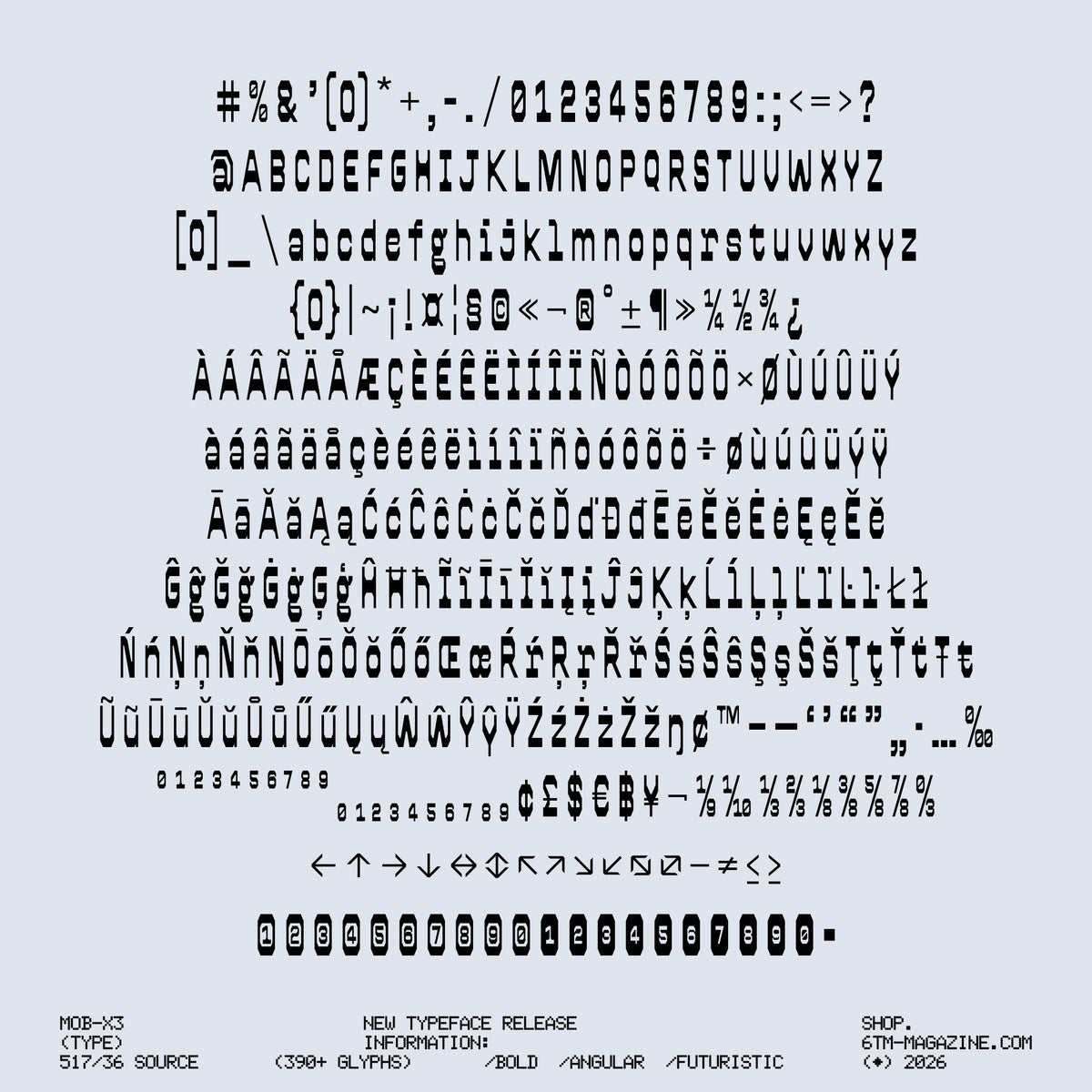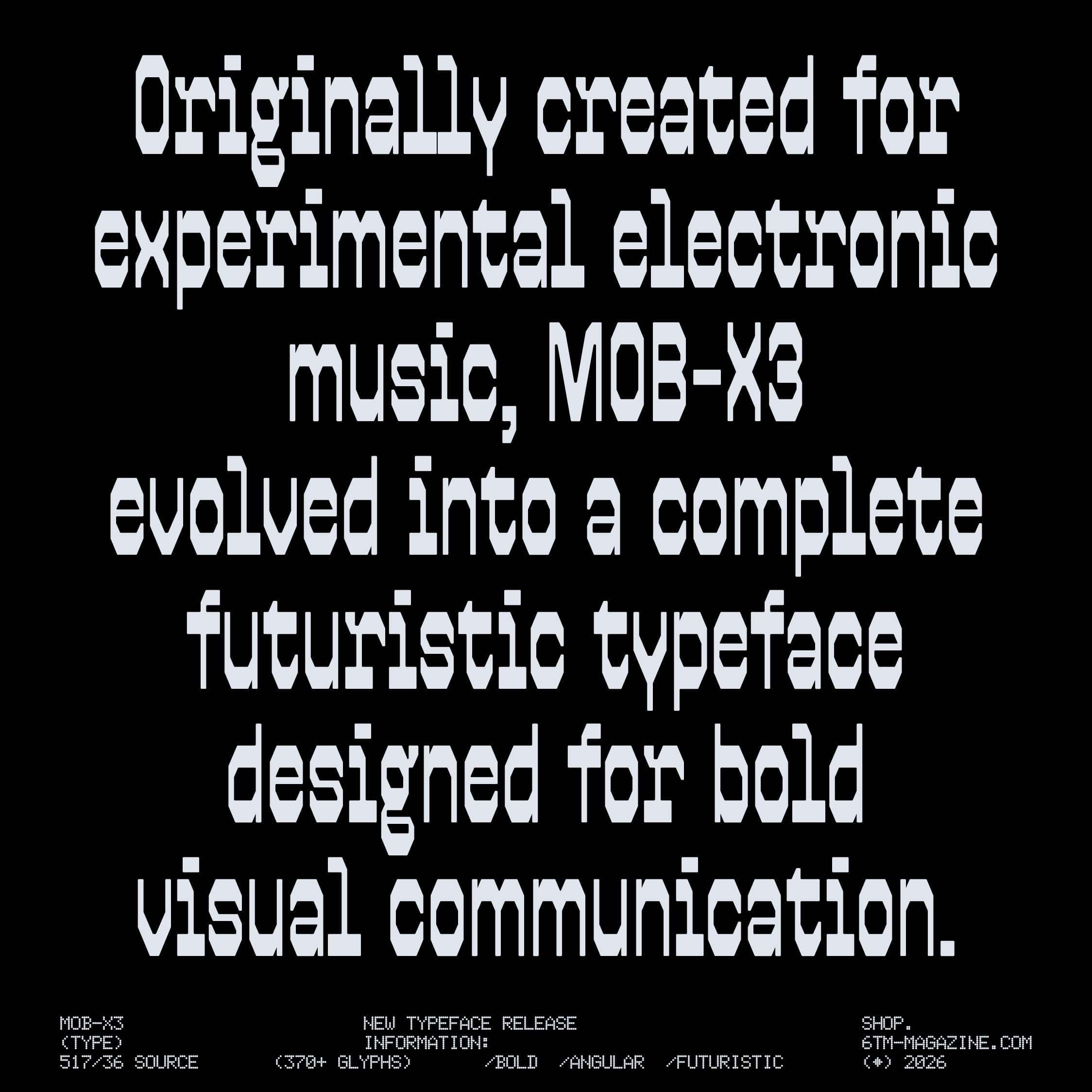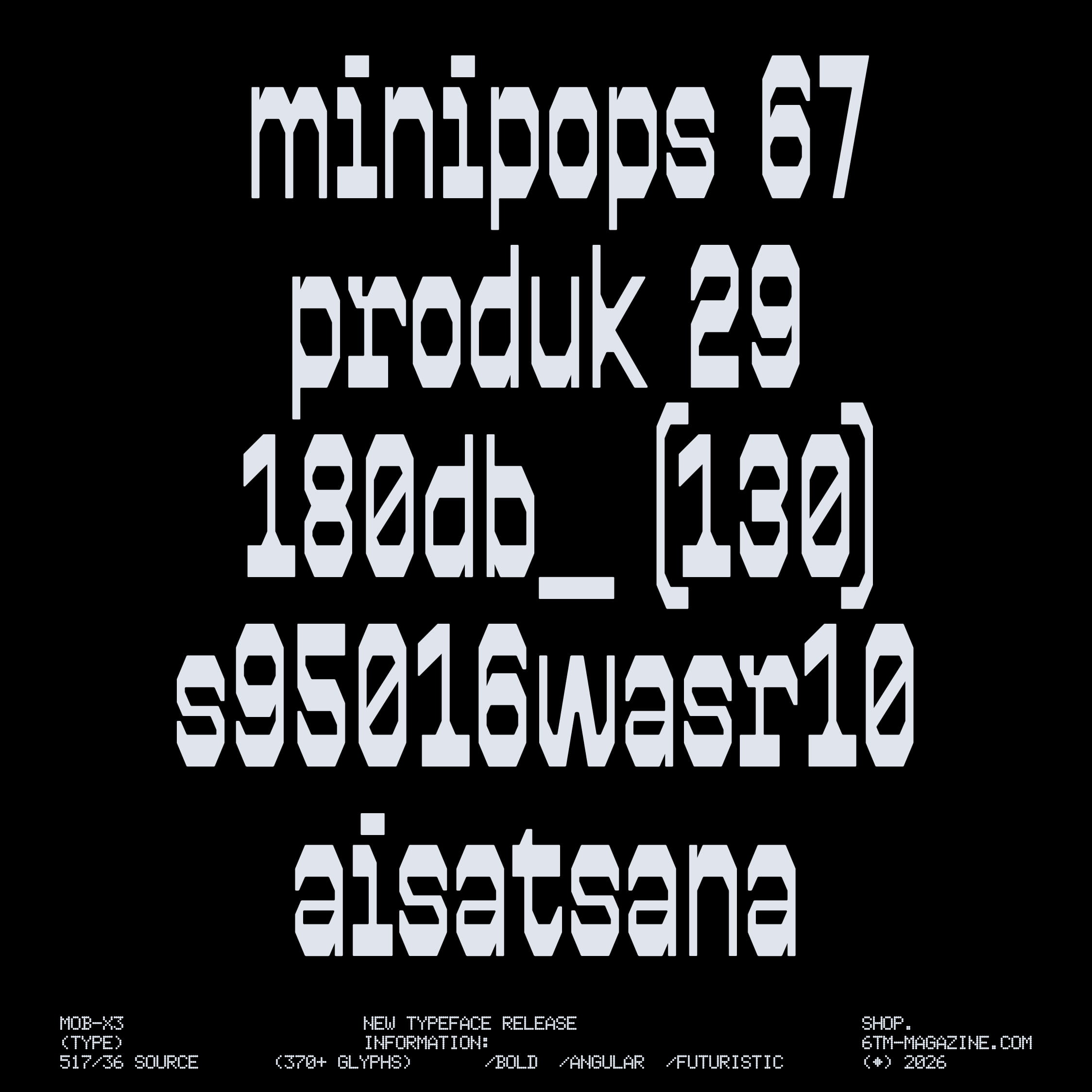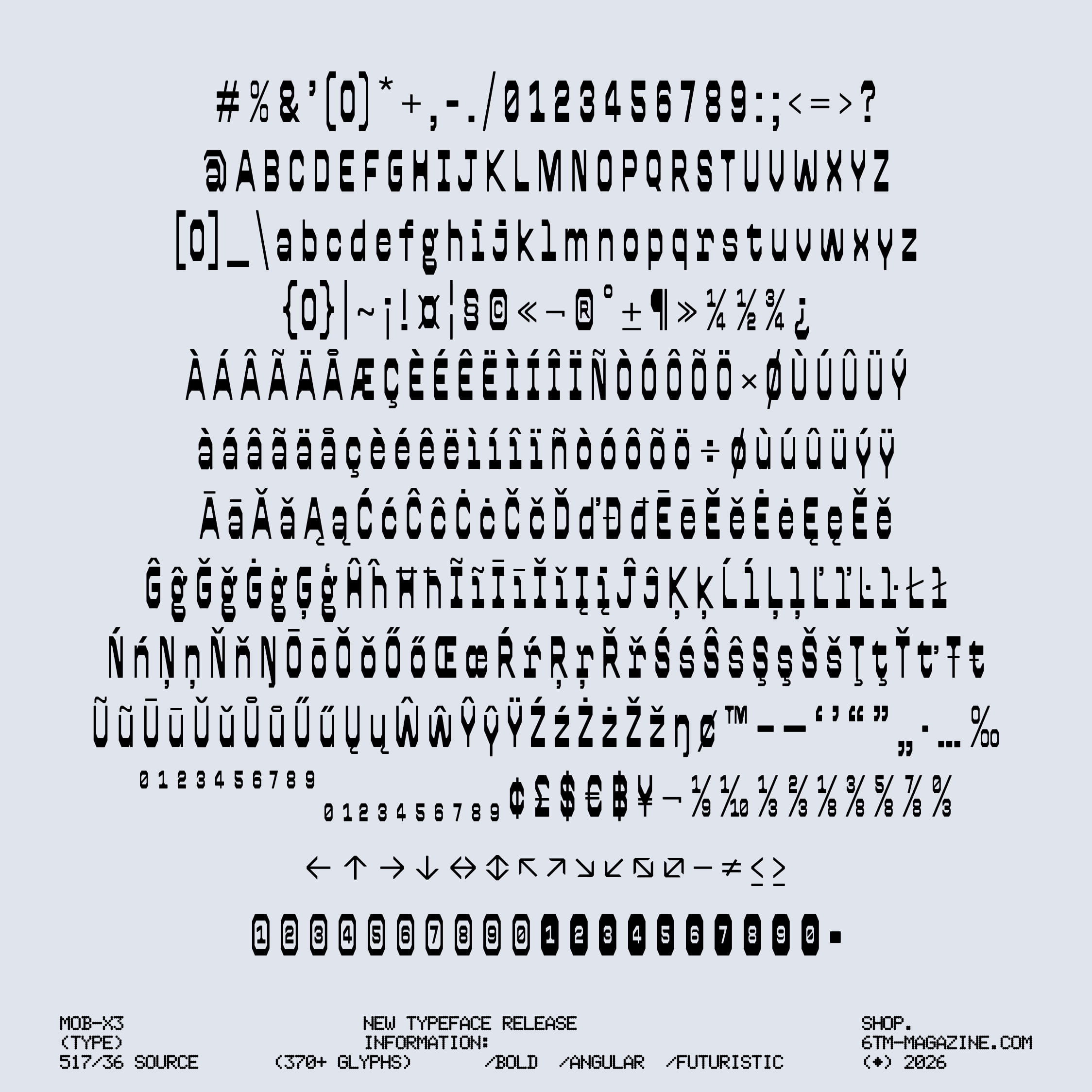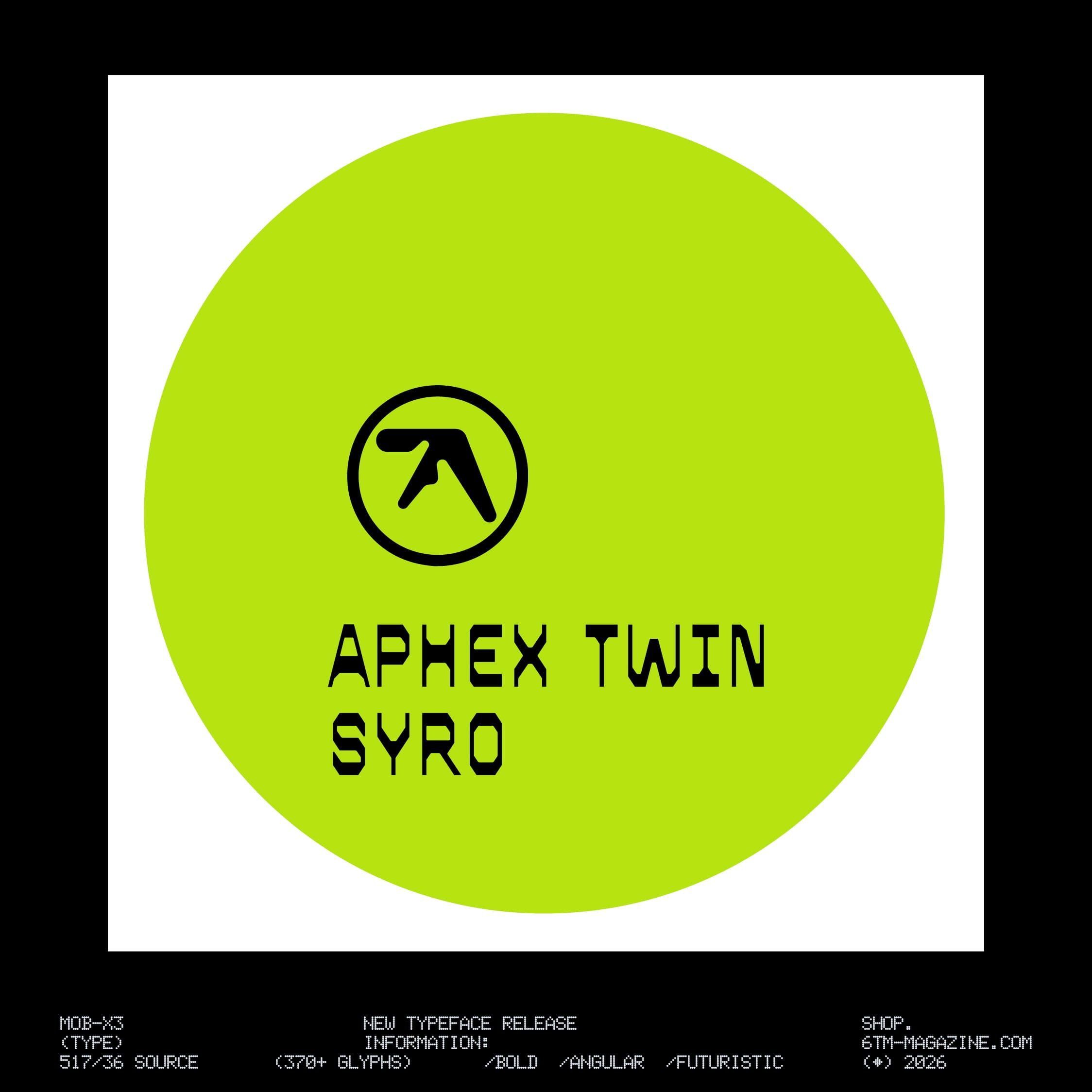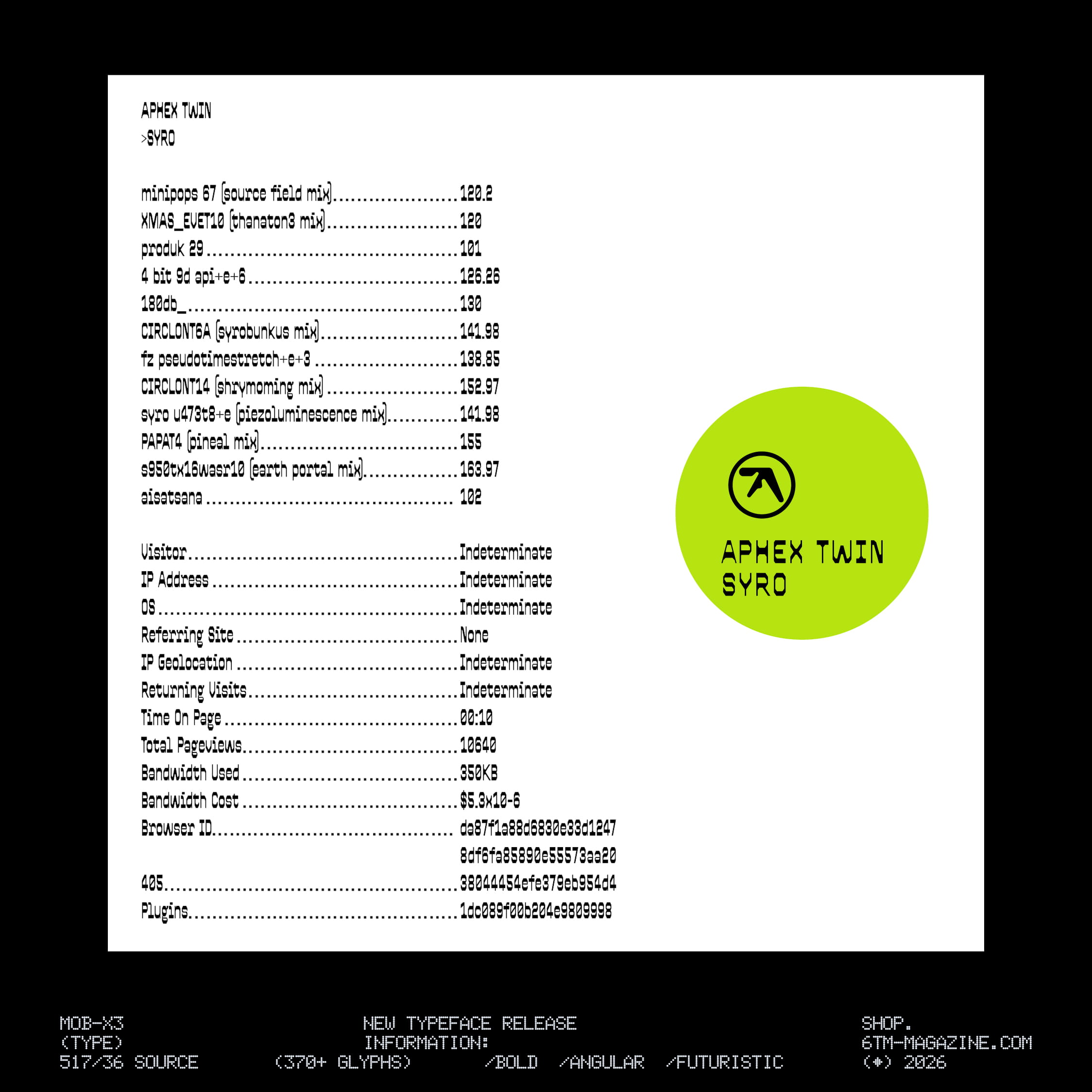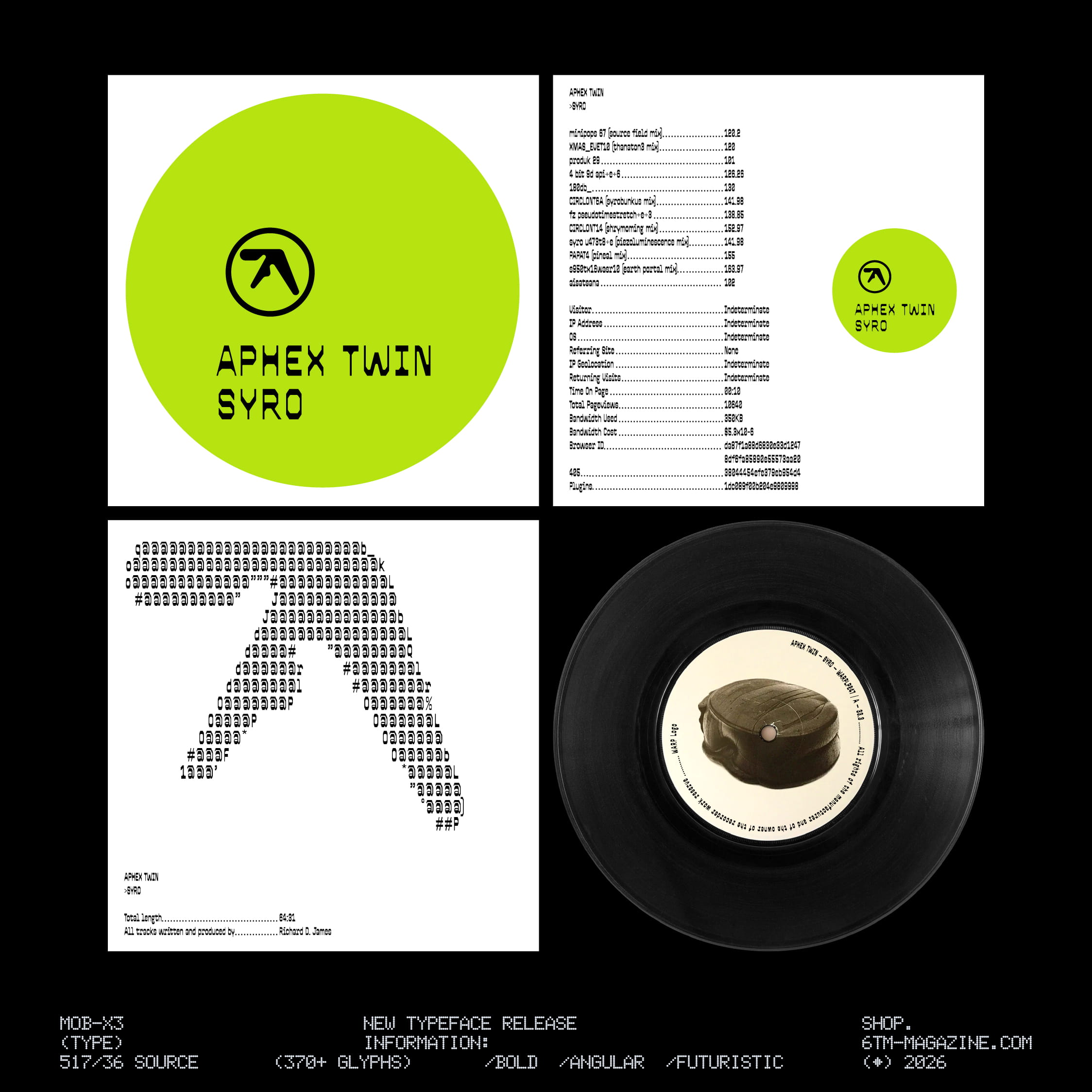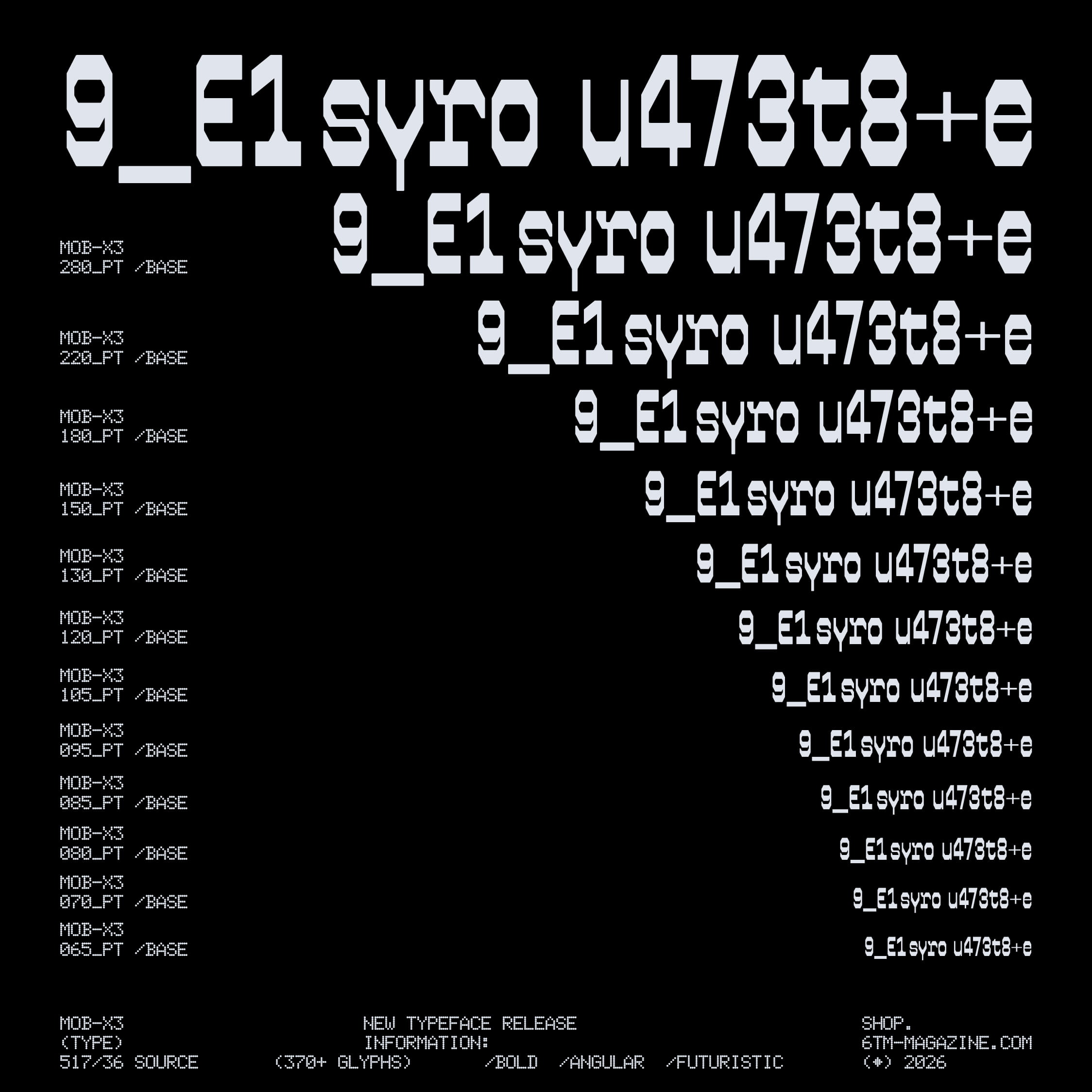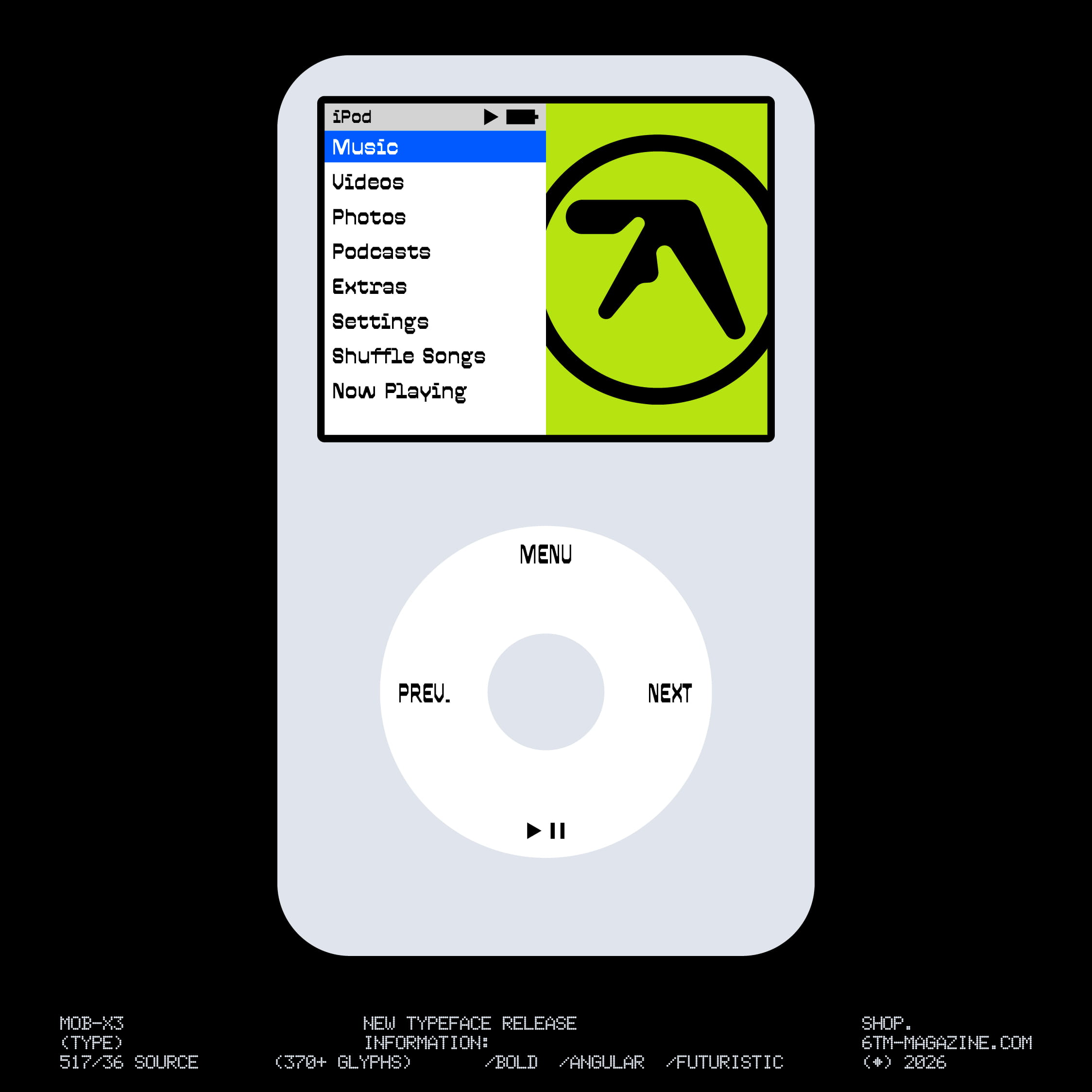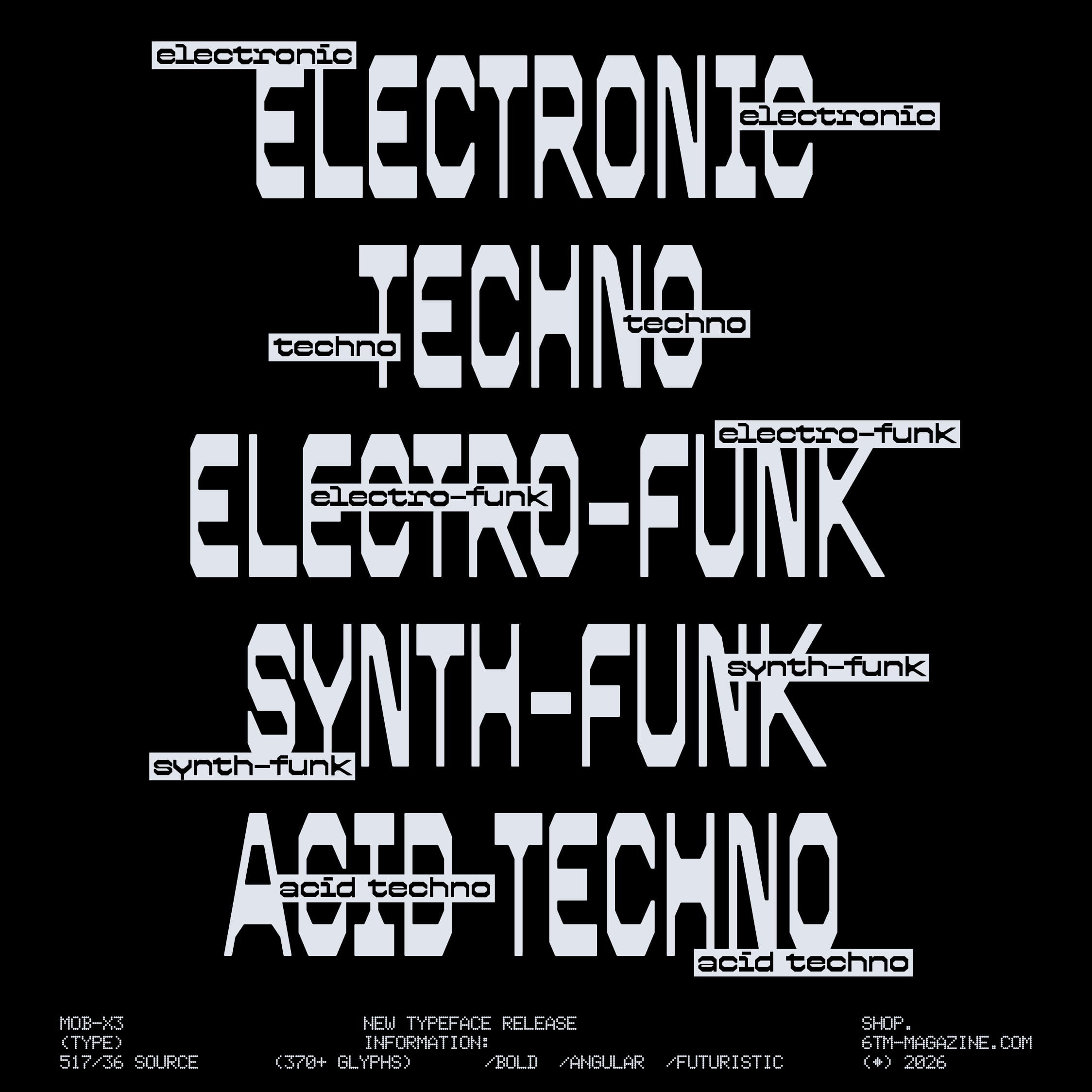
MOB-X3 Typeface (Test)
MOB-X3 is an entity rooted in our server systems, spreading through contemporary digital culture. Originally created for experimental electronic music, MOB-X3 evolved into a complete futuristic typeface designed for bold visual communication.
Version 1.0 features the Regular style with condensed, heavy, and angular letterforms. Built to perform in both text and display contexts, it includes lowercase/uppercase letters, diacritics, numerals, punctuation, symbols, and more. MOB-X3 is a versatile tool for branding, posters, editorial layouts, and digital projects with a distinctly futuristic aesthetic.
• 370+ Glyphs
• Character set: Latin European
• Lowercase
• Diacritics
• Alternates
• Numerals (3 sets)
• Symbols
• Currency
• Arrows
• Mathematics